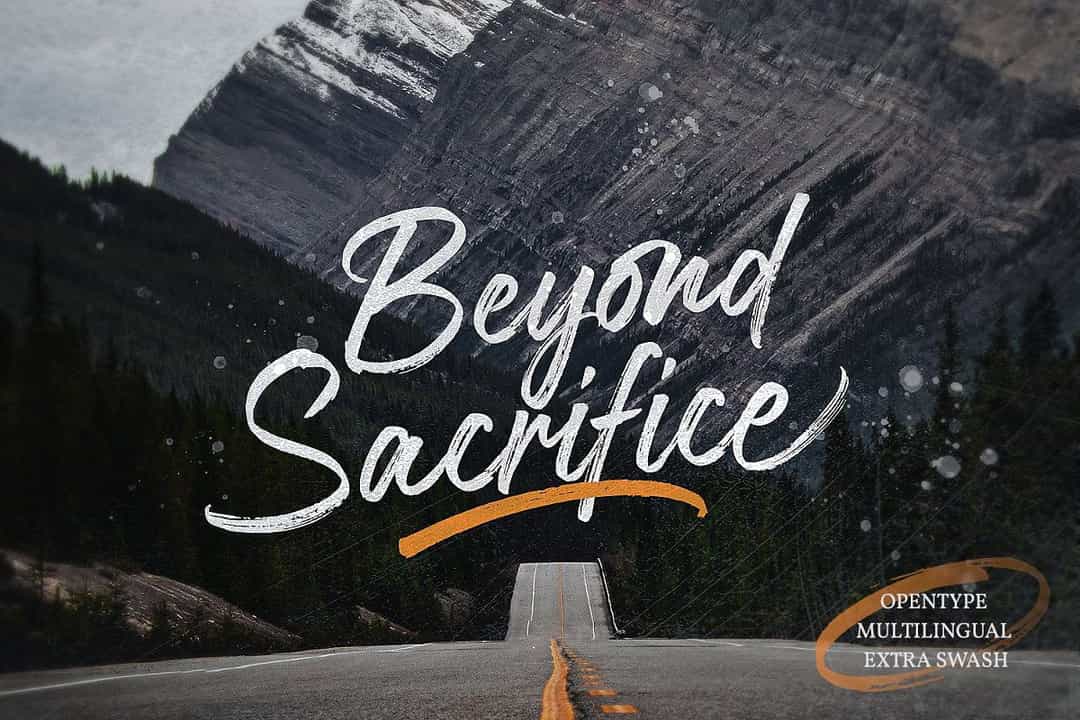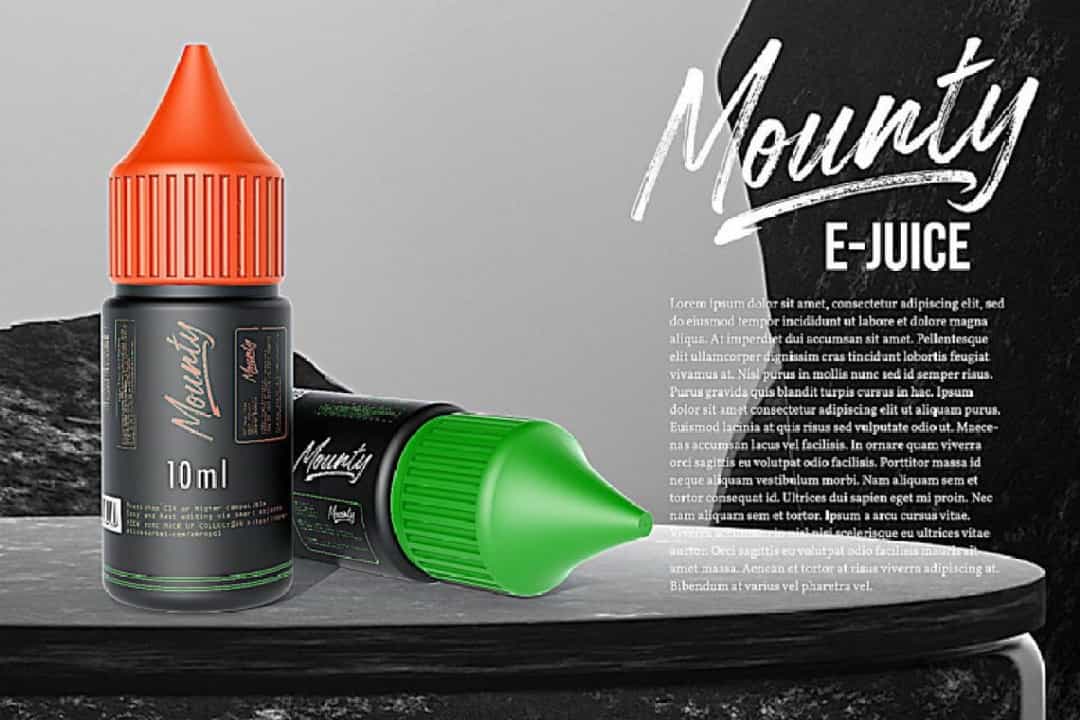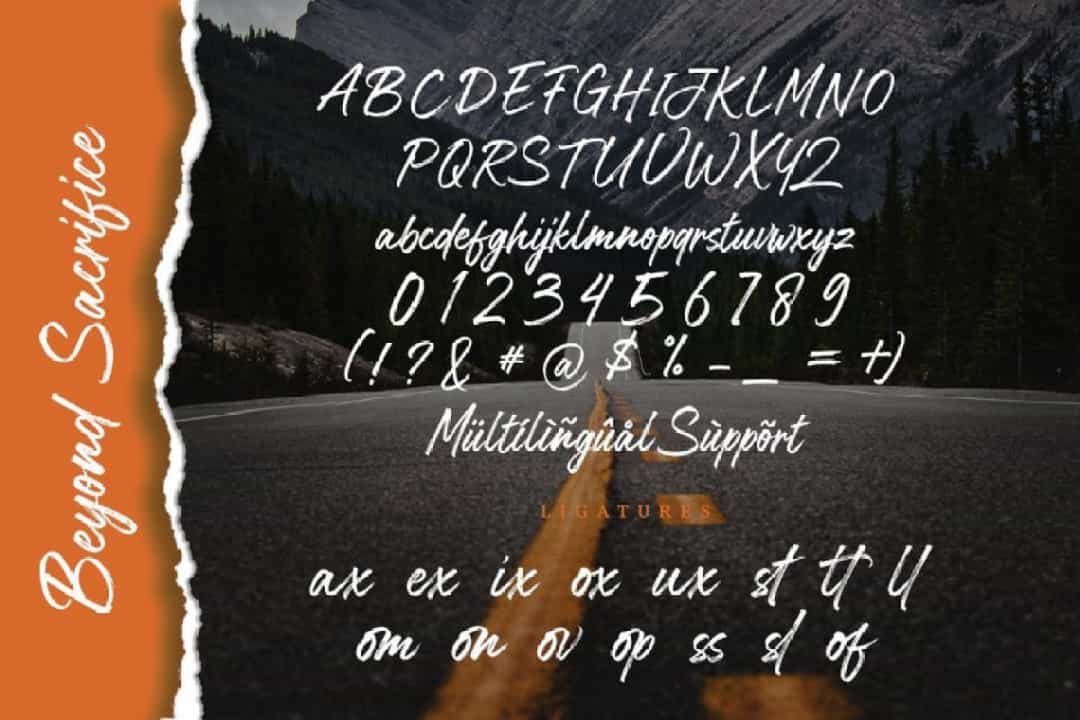
Beyond Sacrifice is an organic and contemporary brush script typeface. It’s ideal for any branding endeavor including branding, t-shirt printing innovative products, and much more. It can be stunning in a myriad of settings.